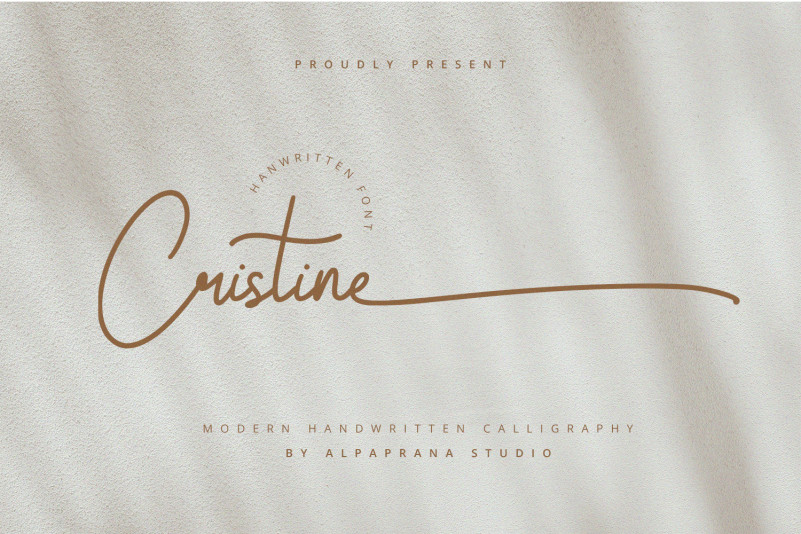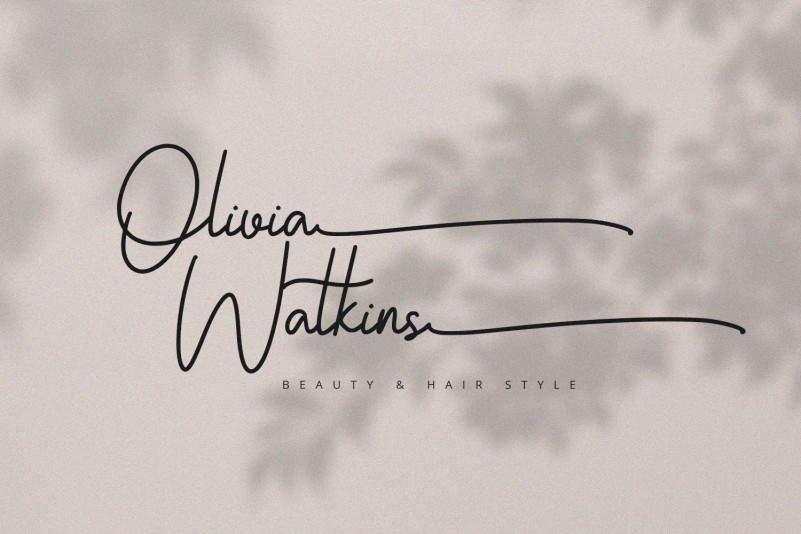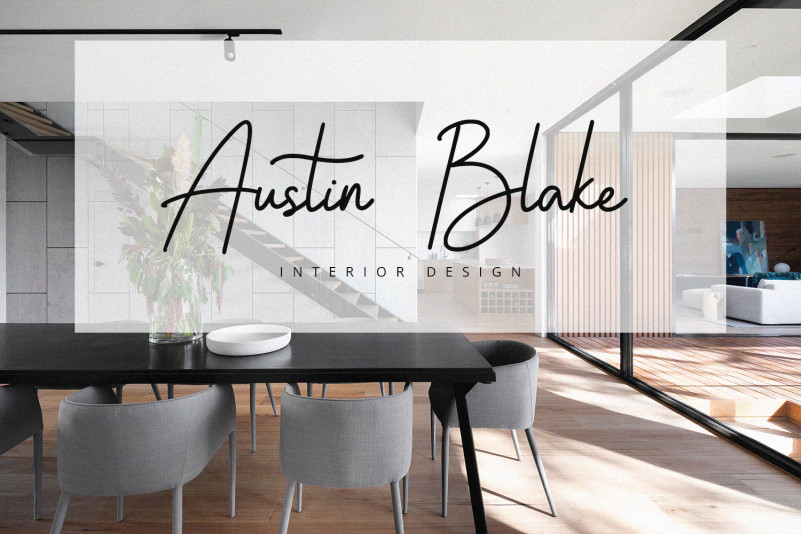
Cristine Font
Cristine Handwritten Font is a stylish handwritten font with authentic and casual feels. It will be perfectly used for Branding, Logo Design, Lettering, Logotype, Clothing, Poster, magazine, packaging, posters, shopping bags, t-shirts, book covers, photography, special events and other design project.